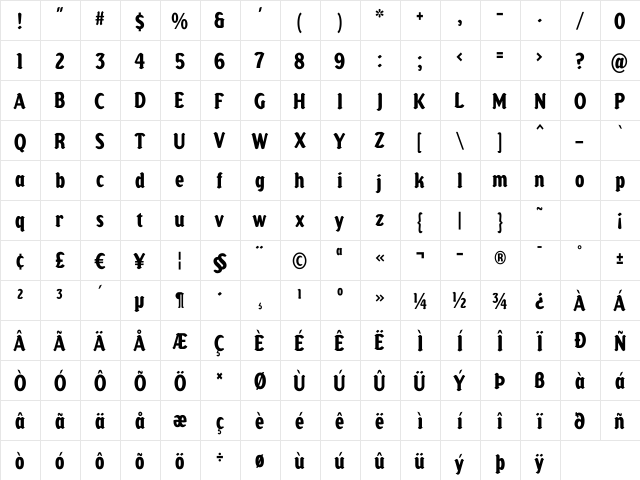
Almonda Condensed Regular
Design Context for Almonda Condensed Typeface
Almonda Condensed offers clean, dependable letterforms without strong stylistic allegiance, making it a practical choice for designers who need flexibility. The condensed width makes it efficient for tight spaces without sacrificing legibility.